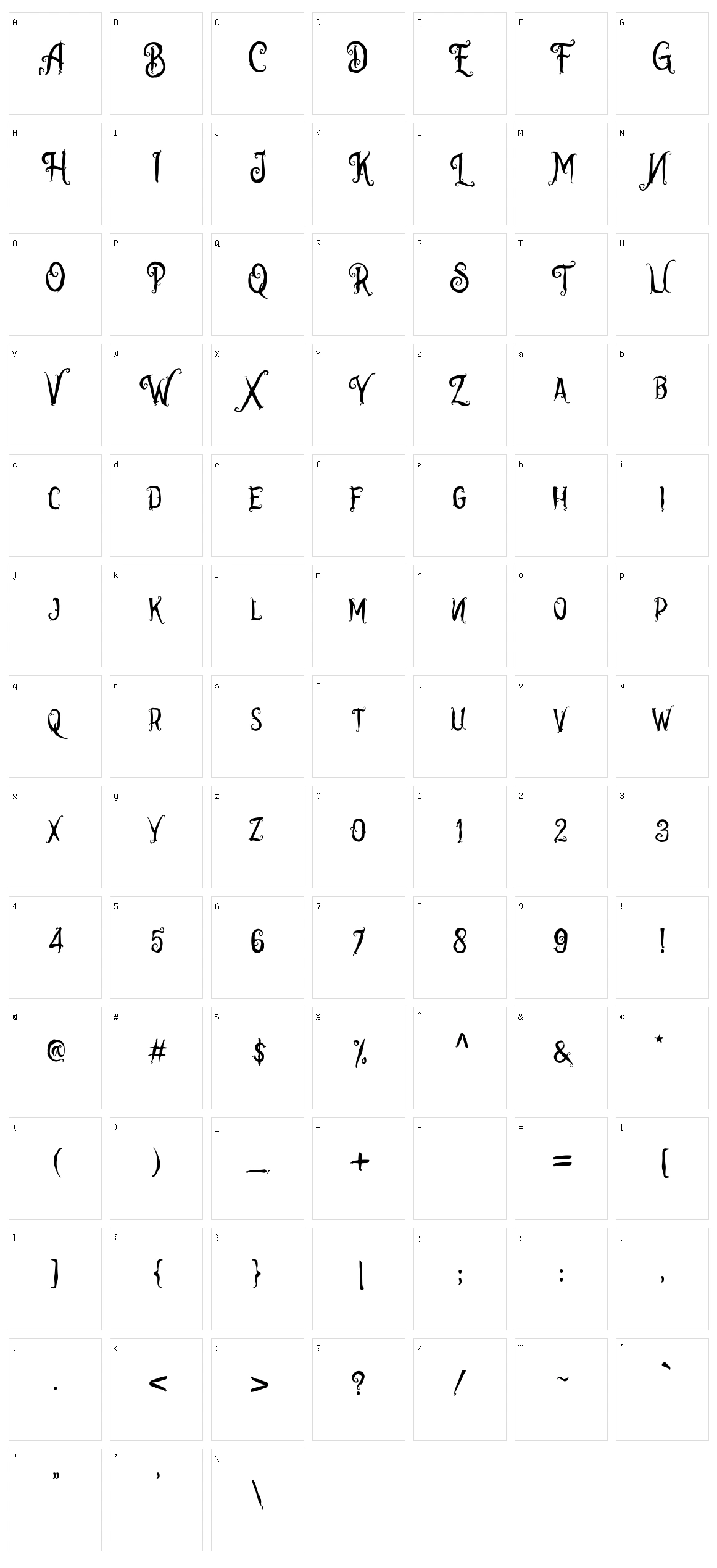
The free font Hallodeer is carefully designed by Nico Muslib, showcasing a thoughtful balance of creativity and usability and falls under the Halloween font style. When you download the ZIP file, it contains only 40.45 KB of font files, making it lightweight and quick to download. Please review the license details below to understand permitted usage and distribution rights. If license information is not available, we recommend using this font for personal projects only or contacting the author directly for commercial usage permissions.